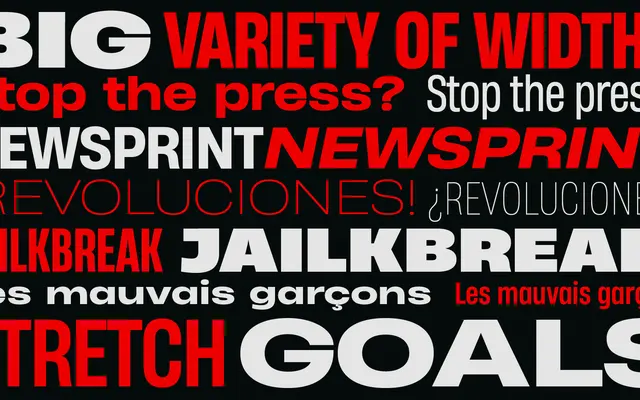
Heading Now
Zetafonts · Francesco Canovaro, Cosimo Lorenzo Pancini, Andrea Tartarelli, Mario De Libero · 2021
A grotesque sans super-family of 176 static styles plus two variable fonts, built across 11 widths and 8 weights, with an emphasis on ultra-narrow industrial letterforms that shift toward traditional rounded grotesque proportions as widths expand.
Designed by Francesco Canovaro and developed further by Cosimo Lorenzo Pancini and Andrea Tartarelli, the family spans from tightly compressed, straight-sided widths suited to headers and wayfinding, through to wider display and body text cuts with matching italics. Over 1,100 characters cover 200+ languages in Latin, Cyrillic and Greek, and a full suite of OpenType features includes small caps, old-style figures, high-legibility alternates and squared punctuation. Variable font versions of both upright and italic are available with the full family package.
Described explicitly as a grotesque sans; the narrow widths exhibit an industrial quality with straight-sided letterforms, while wider widths follow more traditional rounded grotesque forms.